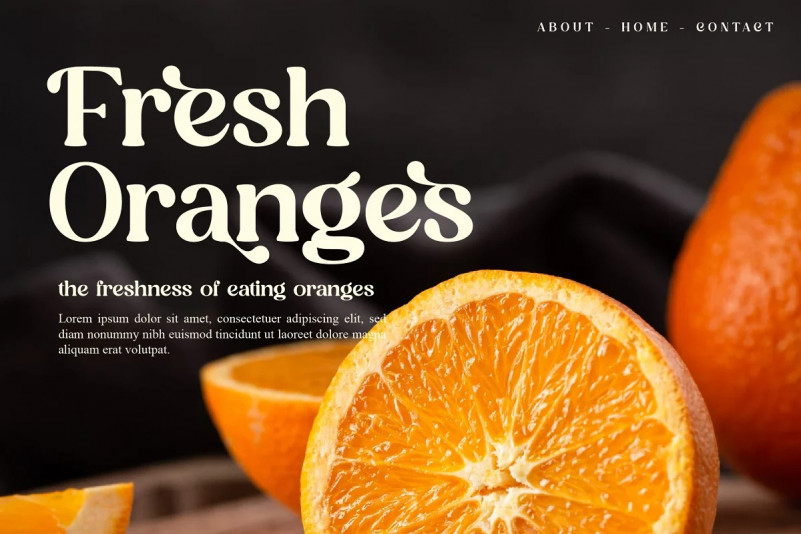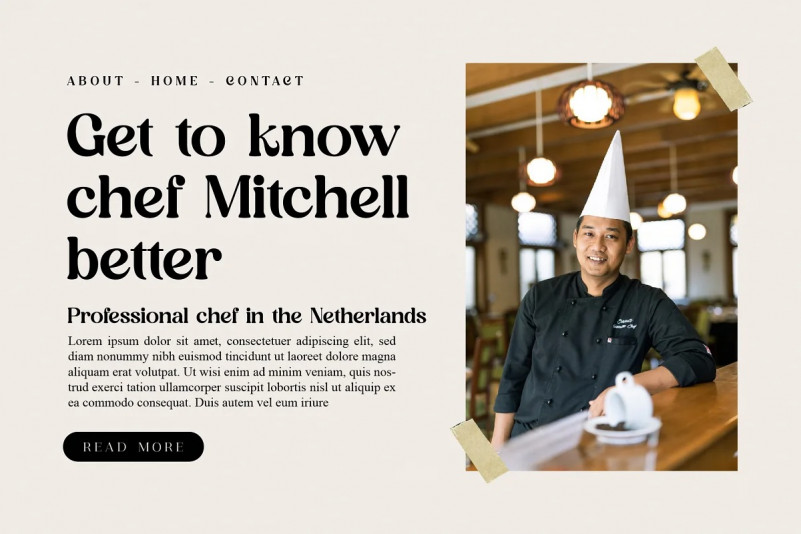
Stradas Vintage Font
Stradas Vintage Font is an amazing display font. The font is suitable for any project like branding , lettering , tshirt print and many others.